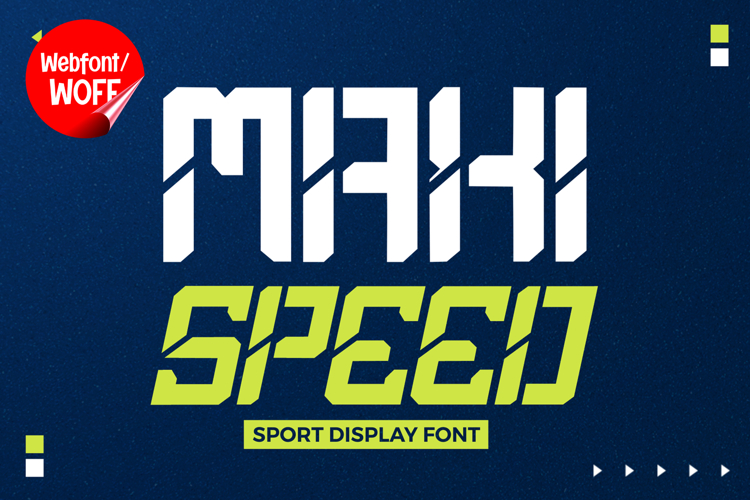
Maxispeed | Modern Futuristic Webfont for Dynamic Websites
Maxispeed is a modern futuristic webfont designed to bring speed, precision, and a high-tech aesthetic into contemporary website design. Inspired by advanced technology, digital interfaces, and performance-driven visuals, this font features clean geometry combined with sharp edges that create a strong and forward-looking appearance. It is an excellent choice for projects that require a modern, innovative, and visually striking typographic identity.
Maxispeed includes a complete set of uppercase characters designed with a futuristic structure. The letterforms feature sleek lines and precise angles that give the font a sense of motion and technological sophistication. These characteristics make it ideal for headlines, banners, hero sections, and featured content where strong visual impact is needed. The modern styling helps establish a clear and confident visual hierarchy.
In addition to letters, the font includes numbers and punctuation, allowing flexible usage across various parts of a website. It works well for tech branding, product showcases, automotive content, gaming interfaces, and promotional layouts. Each character maintains a consistent futuristic style, ensuring a cohesive and unified design throughout the layout.
With multilingual support, Maxispeed includes a wide range of accented characters, making it suitable for international websites and global audiences. This allows content to be displayed clearly across different languages while maintaining the sleek and modern aesthetic.
The modern futuristic style of Maxispeed makes it especially suitable for technology websites, startups, digital platforms, esports branding, and creative portfolios. Its sharp and dynamic appearance adds energy and innovation, helping websites stand out in competitive digital environments. The clean structure also enhances branding that focuses on clarity and performance.
Despite its stylized and angular design, Maxispeed is created with readability in mind. The spacing and proportions are carefully balanced to ensure clarity, particularly in display sizes. This makes it effective for impactful headings and short content elements where both style and usability are important.
Maxispeed is a webfont that combines futuristic aesthetics with modern digital performance. Its sharp forms, clean geometry, and high-tech character create a distinctive typographic presence that enhances website design. For projects that require a sleek, powerful, and innovative font, Maxispeed offers a strong and visually engaging solution.